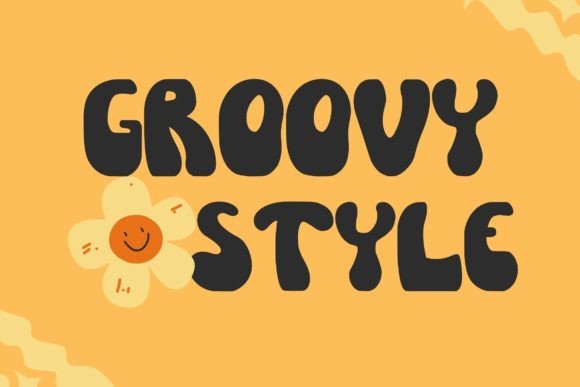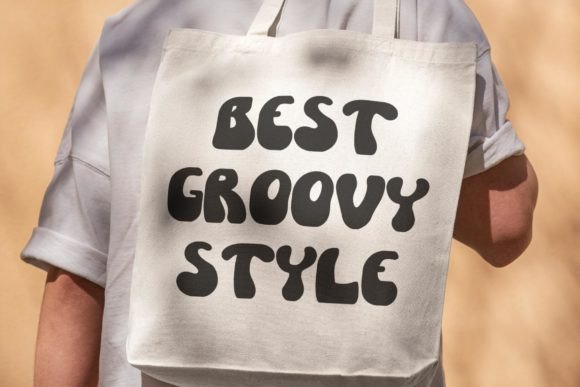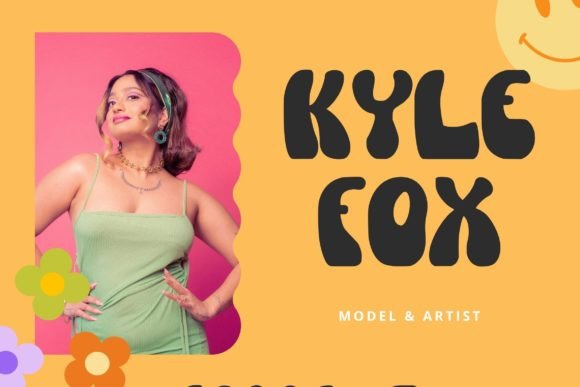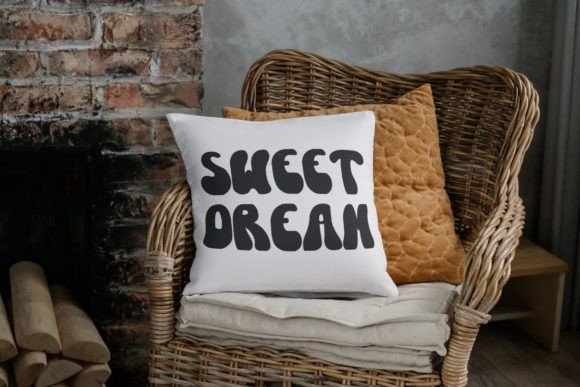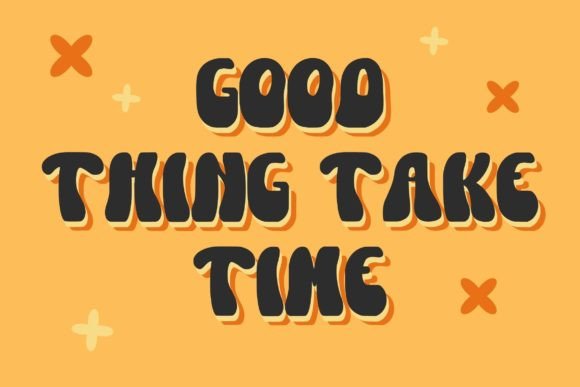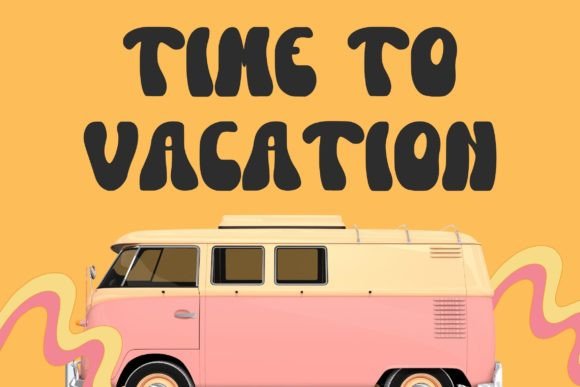
Introducing Flora Inside Font: The Ultimate Retro Groovy Display Font
Are you looking for a font that adds a touch of retro charm and hippie vibes to your design projects? Look no further than Flora Inside Font! This distinctive handwritten display font is perfect for designers and crafters who want to add a unique and playful twist to their branding, logos, wedding designs, media posts, advertisements, product packaging, and more.
What is Flora Inside Font?
Flora Inside Font is a carefully crafted display font that embodies the spirit of the 1960s and 1970s. Its retro and groovy style is characterized by distinctive handwritten characters that exude a sense of playfulness and whimsy. With its bold and eye-catching design, this font is sure to make your projects stand out from the crowd.
Flora Inside Font is an incredibly versatile font that can be used for a wide range of design projects. Whether you’re working on branding projects, logos, wedding designs, media posts, advertisements, product packaging, product designs, labels, photography, watermarks, invitations, stationery, or any other project that needs a retro hippie vibe, this font is the perfect choice.
Key Features of Flora Inside Font
- Retro and Groovy Style: Flora Inside Font boasts a unique retro and groovy style that’s perfect for adding a touch of nostalgia to your designs.
- Distinctive Handwritten Characters: Each character in this font is carefully crafted to provide a distinctive and playful look that’s sure to capture attention.
- Bold and Eye-Catching Design: The bold design of Flora Inside Font makes it perfect for headlines, titles, and other design elements that need to stand out.
- Highly Versatile: This font can be used for a wide range of design projects, from branding and logos to wedding designs and product packaging.
Why Choose Flora Inside Font?
There are many fonts available that claim to offer a retro or groovy style, but Flora Inside Font stands out from the crowd. Here are just a few reasons why designers and crafters love this font:
- Unique and Playful Design: Flora Inside Font offers a unique and playful design that’s sure to add a touch of personality to your projects.
- Easily Readable: Despite its bold and playful design, Flora Inside Font is surprisingly easy to read, making it perfect for use in a variety of contexts.